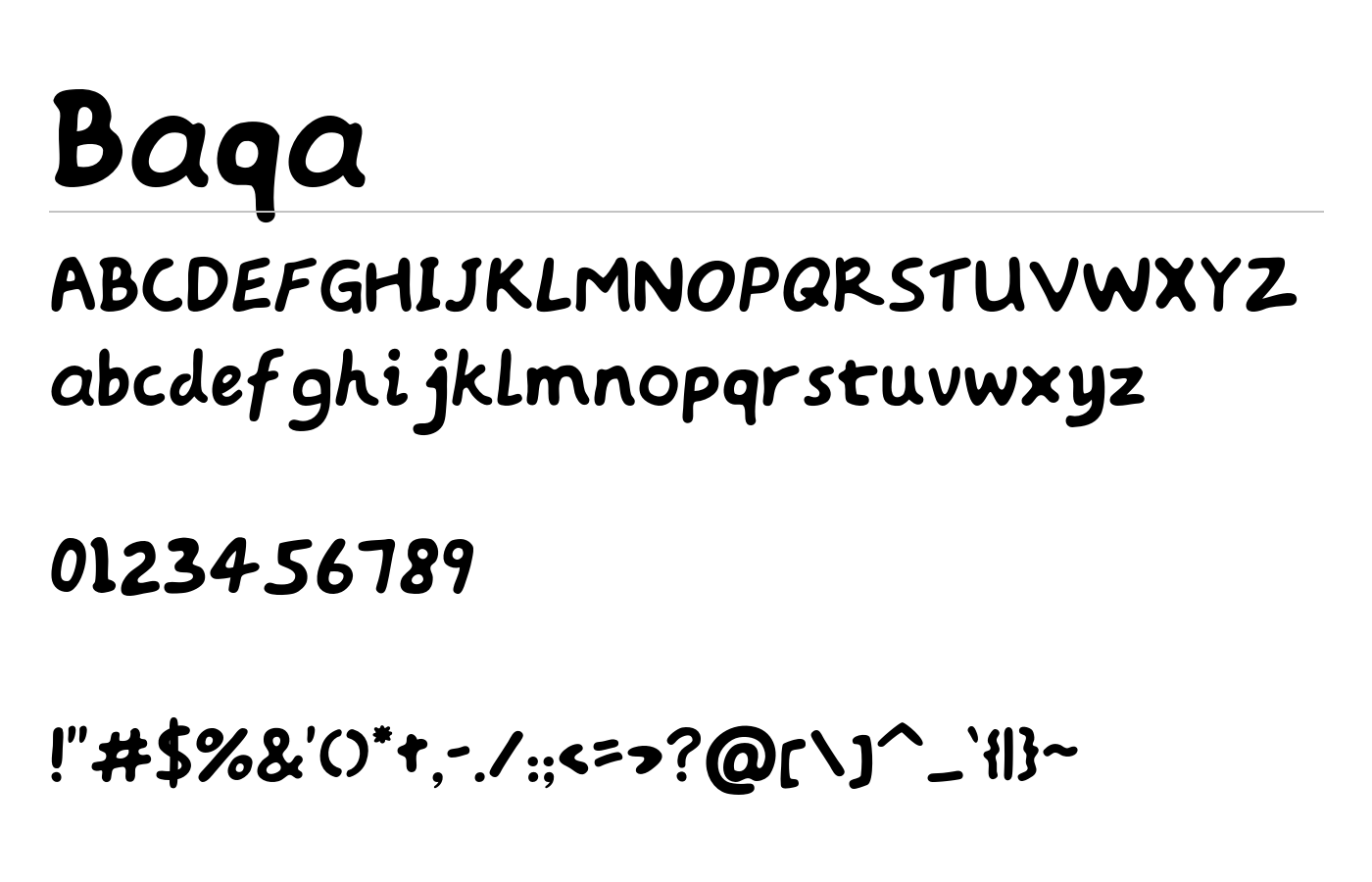
Baqa is a playful, hand-drawn sans serif font with a casual and friendly feel. Its rounded, slightly irregular letterforms and moderate contrast give it a warm and approachable personality, making it ideal for informal designs, children’s books, or creative branding. This font works well for headlines, logos, and packaging where a fun and relaxed tone is desired.
About Baqa Font